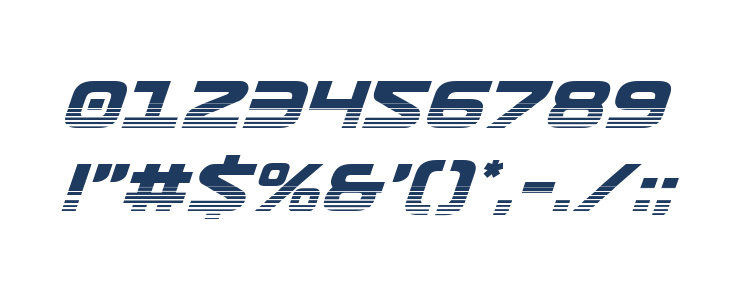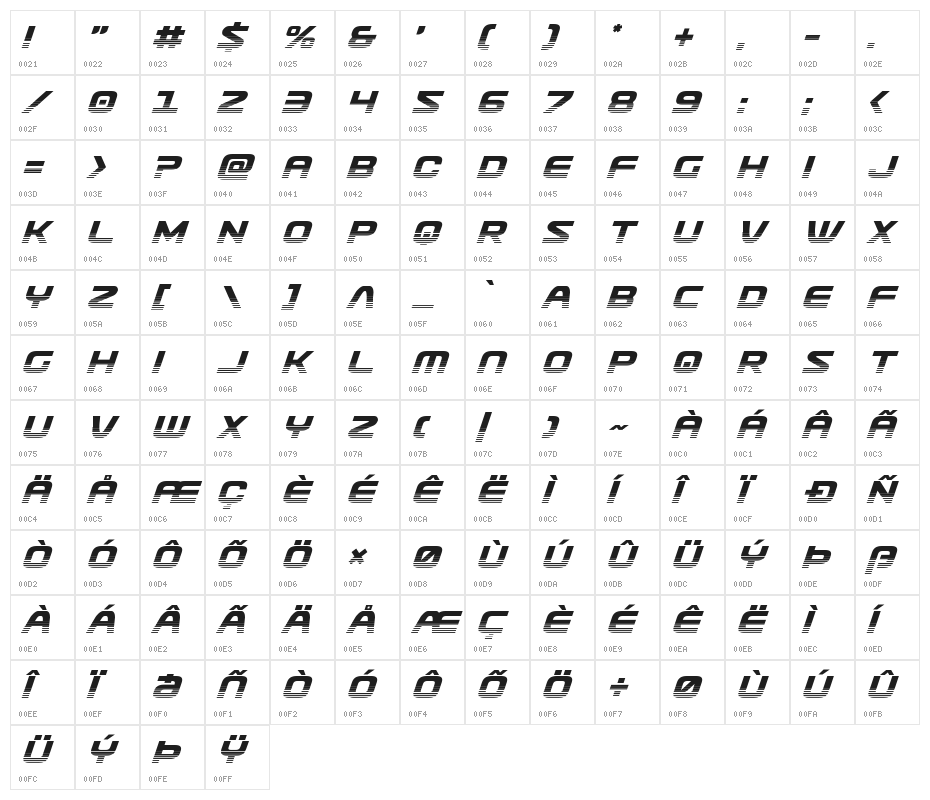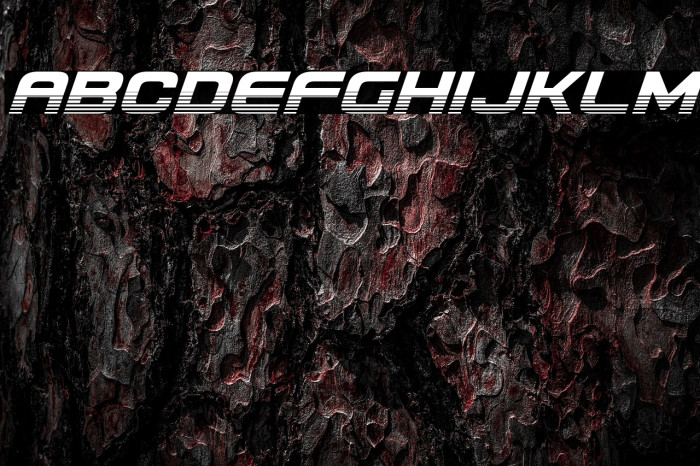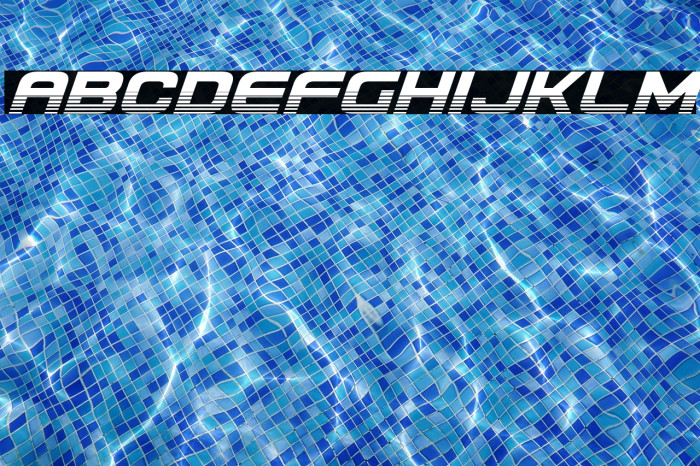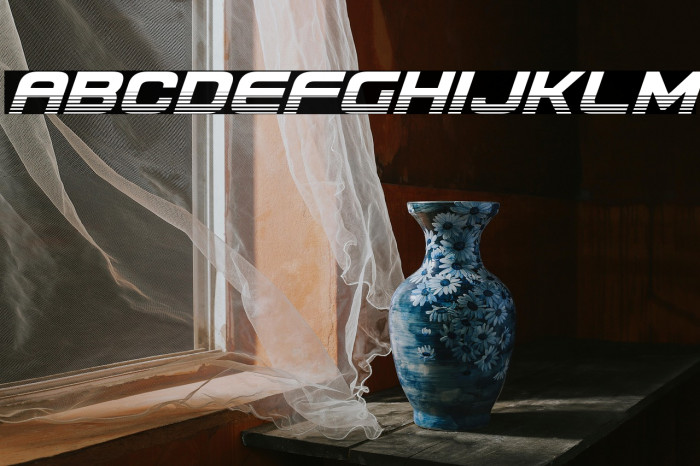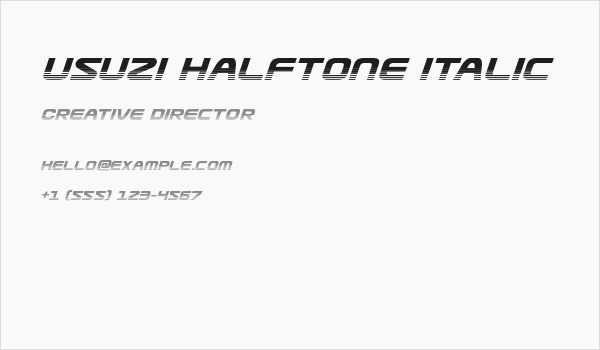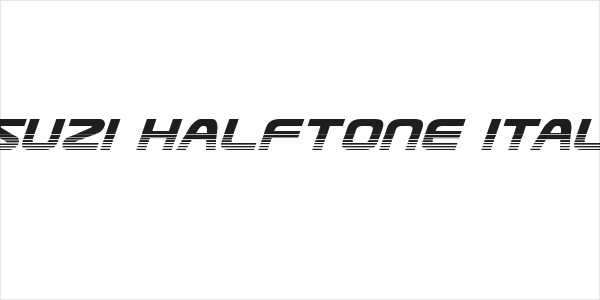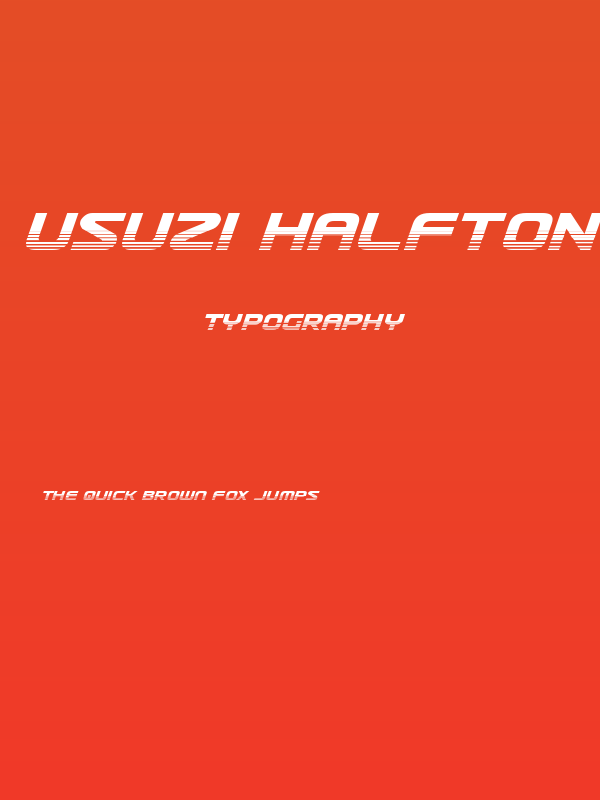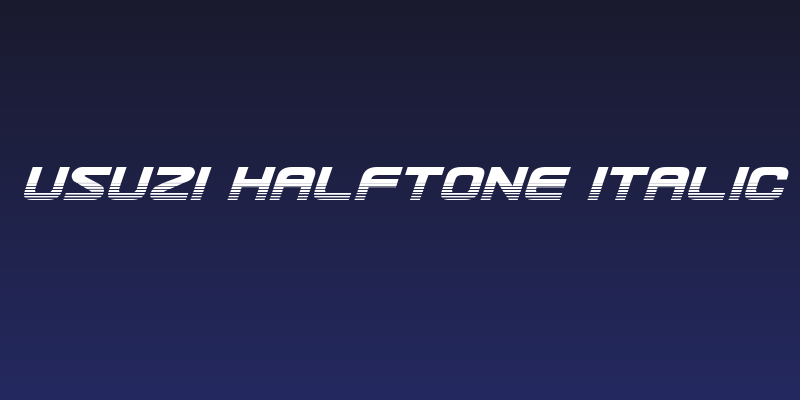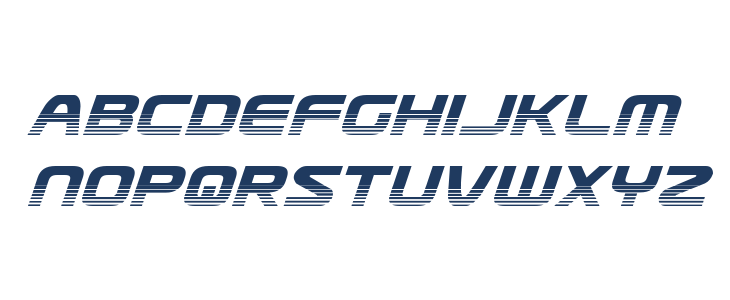
Usuzi Halftone Italic Font
Usuzi Halftone Italic Description
This font features a dynamic and modern design with a halftone effect that gives it a sense of motion and energy. The characters are italicized, adding a sleek and forward-leaning appearance. Each letter is composed of horizontal lines that create a gradient-like effect, enhancing the futuristic and digital aesthetic. The boldness of the characters ensures strong visibility, making it suitable for impactful designs. The font's unique style is ideal for projects that require a contemporary and edgy look.